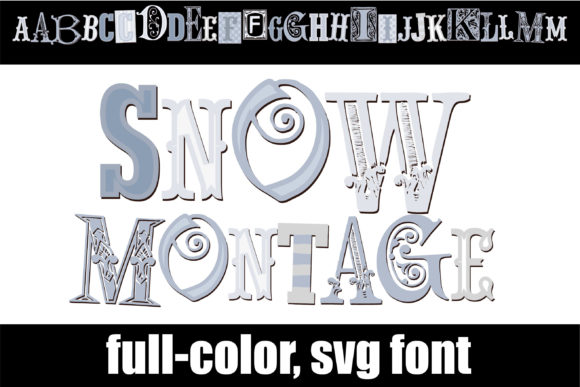
Behold the Snow Montage Font, a visual masterpiece designed to ignite your creativity! Dive into a world of colorful wonder, where letters dance across the screen like snowflakes in a winter wonderland. Created by the imaginative minds at Illustration Ink, this full-color font is a breathtaking symphony of shades and hues that will transform your designs into captivating works of art.
Immerse yourself in the Snow Montage experience and let your imagination soar. Craft logos that burst with vibrancy, designs that radiate with charm, and social media posts that sparkle with allure. The Snow Montage Font isn't just a font; it's a declaration of style, a testament to the power of visual expression.
With its playful upper and lower alt case, accessible through your system's character map, the Snow Montage Font grants you limitless possibilities. Experiment with different combinations to create eye-catching headlines, whimsical quotes, or personalized greeting cards that leave a lasting impression.
Unleash your creativity and let the Snow Montage Font guide you on a journey of self-expression. Whether you're a seasoned graphic designer, a budding entrepreneur, or simply someone who loves to add a touch of magic to their everyday life, this font will ignite your passion and elevate your designs to new heights.